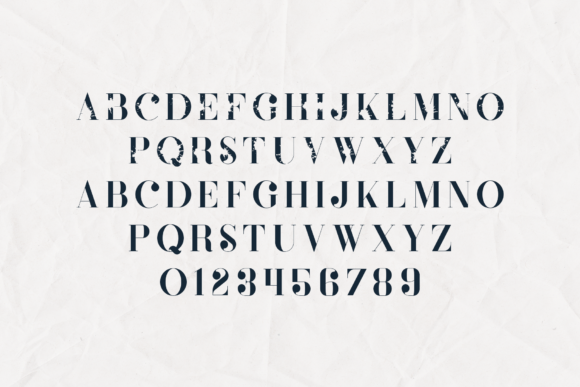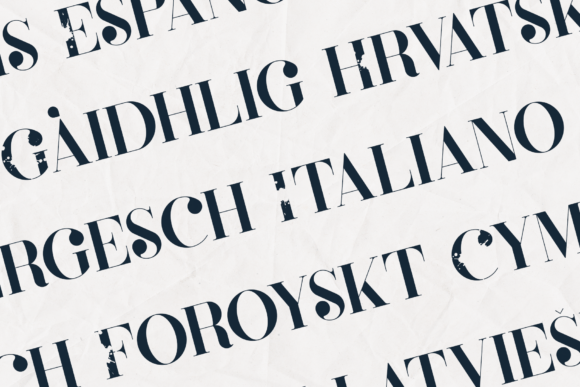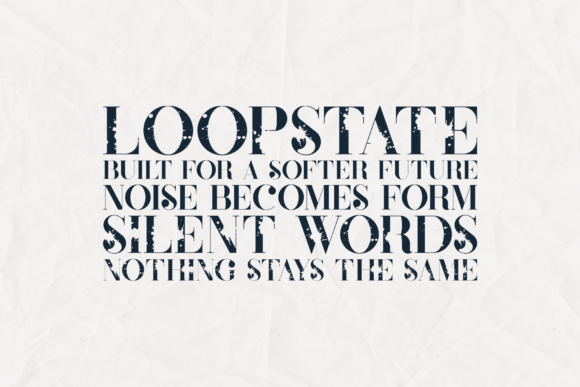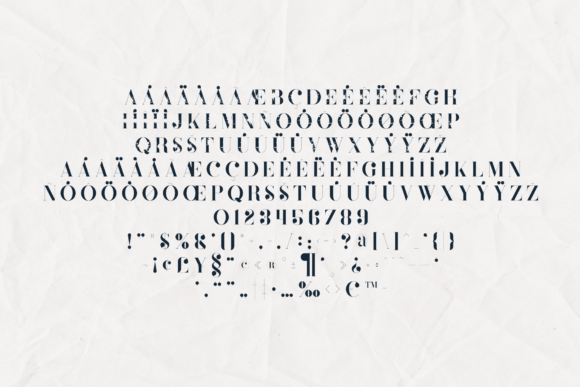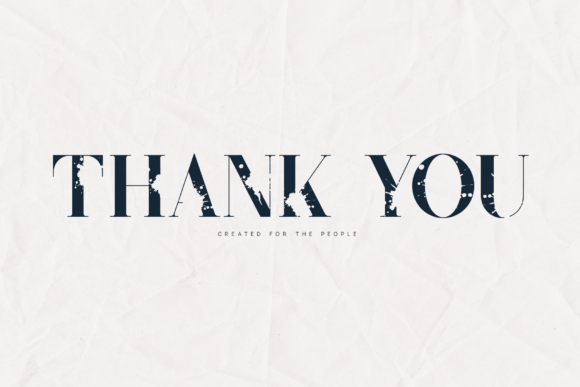
Introducing Defect Font: Elevate Your Design with Bold Distressed Typography
In the world of typography, a well-crafted font can make all the difference in elevating your design from ordinary to extraordinary. For designers and crafters looking to add a touch of grit and character to their work, Defect Font is an exceptional choice. This bold distressed serif typeface seamlessly blends classic typography with an expressive grunge texture, making it perfect for a wide range of applications.
What is Defect Font?
Defect Font is a unique and versatile typeface that combines the elegance of traditional serif fonts with the raw, edgy appeal of distressed textures. Each letter in the Defect Font has a distinct, hand-crafted appearance, thanks to the subtle imperfections and grunge elements that are expertly integrated into the design. This results in a typography that is not only visually striking but also rich in character.
Ideal Applications for Defect Font
Defect Font shines brightest in large display settings where its bold and distressed features can be truly appreciated. Some of the ideal applications for Defect Font include:
- Posters: Create eye-catching posters that demand attention with Defect Font’s bold and expressive typography.
- Editorial Headlines: Add a touch of grit and sophistication to your editorial layouts with Defect Font’s unique distressed texture.
- Branding: Establish a strong brand identity with Defect Font’s bold and memorable typography.
- Album Covers: Give your music releases a distinctive look that stands out with Defect Font’s artistic texture.
- Apparel Graphics: Elevate your apparel designs with Defect Font’s dynamic and visually engaging typography.
- Packaging Design: Make your product packaging more compelling and noticeable with Defect Font’s bold distressed style.
The Power of Distressed Typography
The distressed elements in Defect Font are more than just a stylistic choice; they bring a level of depth and authenticity to your typography. Each letter, number, and symbol in Defect Font has been carefully crafted to exhibit a unique character, as if each one has been individually stamped or printed. This uniqueness adds a human touch to your designs, making them more relatable and engaging to your audience.
Defect Font offers a range of benefits for designers and crafters looking to push the boundaries of their creative projects:
- Expressive Freedom: With Defect Font, you have the flexibility to create dynamic and expressive typography that captures the essence of your message.
- Unique Designs: The distressed texture of Defect Font ensures that your designs stand out from the crowd, offering a fresh alternative to traditional typography.
- Versatility: Whether you’re working on a bold branding campaign, a vintage-inspired poster, or an expressive editorial layout, Defect Font adapts seamlessly to your design needs.
- Artistic Texture: Bring a touch of artistic texture to your typography, adding depth and character to your designs.
Defect Font is a bold and versatile typeface that brings a unique blend of classic typography and expressive grunge texture to the table. Its distressed elements and dynamic appearance make it an ideal choice for designers and crafters looking to create visually engaging and memorable designs. Whether you’re working on posters, editorial layouts, branding, or packaging design, Defect Font is sure to elevate your typography and give your projects a distinctive edge.